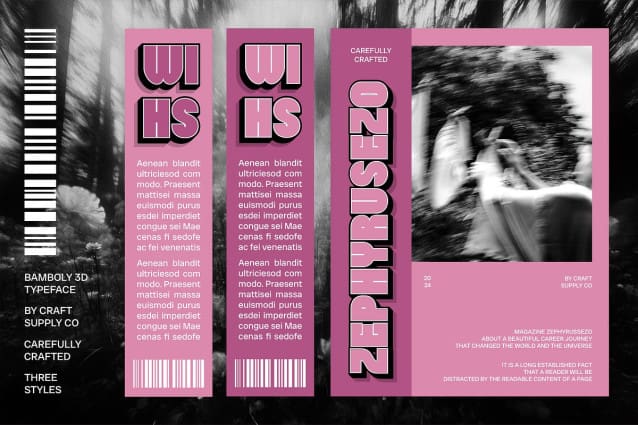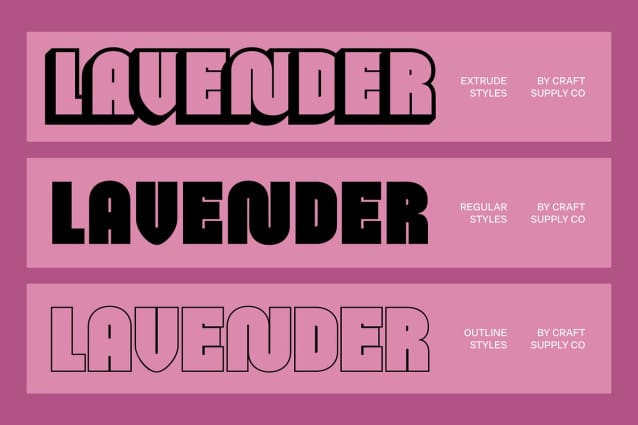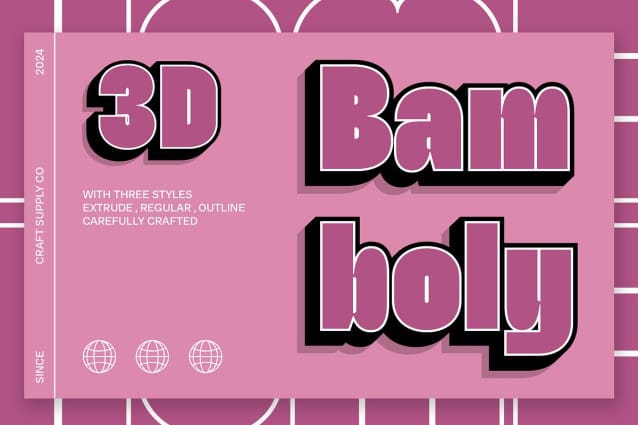
Bamboly 3d Font
Bamboly 3D Font is a bold sans-serif font designed to make a powerful impression. Featuring thick, solid letterforms paired with a striking 3D effect, this font creates a sense of depth and dimensionality that enhances visual interest and impact. The 3D effect ensures that Bamboly 3D stands out, making it an excellent choice for high-visibility designs.
Enhanced Presence for Eye-Catching Designs The dimensional appearance of Bamboly 3D adds significant visual weight, making your text pop with a bold, commanding presence. This effect is perfect for creating eye-catching branding, dynamic posters, and memorable promotional materials that require a strong visual statement.
Ideal for Impactful Branding and Marketing Whether for impactful logos, engaging posters, or dynamic marketing materials, Bamboly 3D excels in delivering a modern, high-impact look. Its combination of strength and modernity ensures that your designs convey both confidence and creativity.
Versatile for Various High-Impact Applications Bamboly 3D’s bold design and 3D effect make it versatile for a range of design applications. From attention-grabbing advertisements to influential branding, this font provides a striking visual statement that elevates your projects with a touch of contemporary flair and dimensional depth.